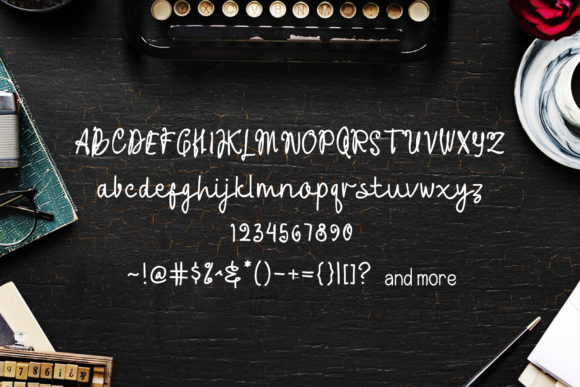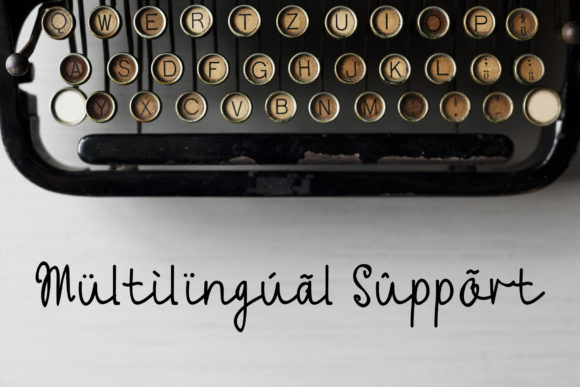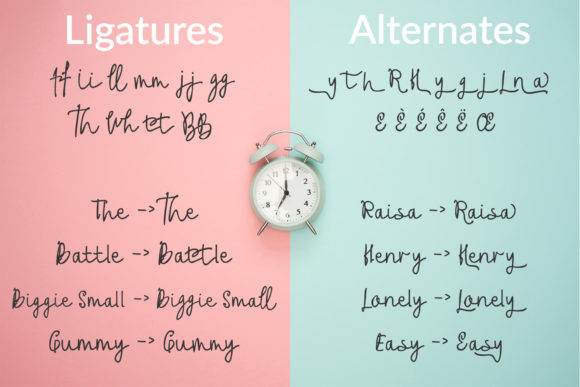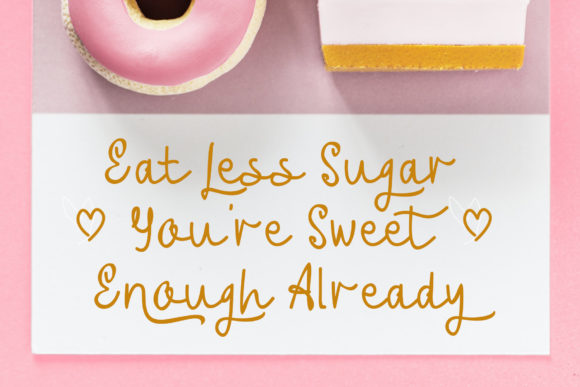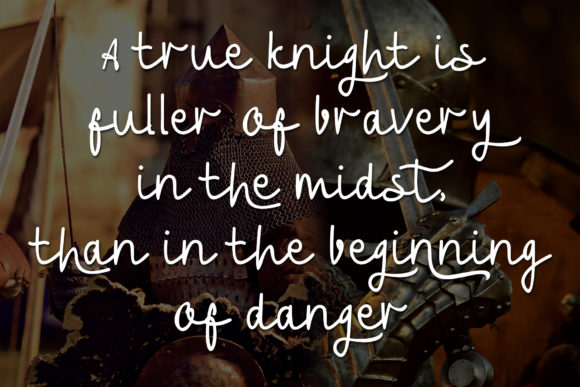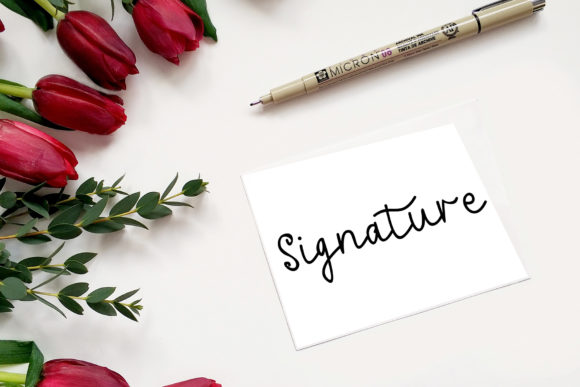
Discover the Magic of Anitta Script Font
Have you ever been stuck trying to find the perfect font to match your creative vision? You’ve spent hours scrolling through design websites, only to end up with a font that just doesn’t feel right. Well, we’ve got the solution for you! Introducing the beautiful and elegant Anitta Script Font – the perfect addition to any design project.
Whether you’re creating invitations, posters, social media graphics, or anything in between, Anitta Script Font is sure to impress. This stunning script font is perfect for adding a touch of sophistication and elegance to your designs. As a designer, you know how valuable it is to have a versatile font that can elevate your work to the next level. Anitta Script Font is that font – and it’s about to become your new go-to.
Anitta Script Font Key Features
- Font Family: Anitta Script, a unique script font designed for creative and artistic purposes.
- Unique Characteristics: Features a distinctive, handwritten style with swashes and flourishes, adding a touch of elegance and sophistication to designs.
Anitta Script Font Review
I’ve had the chance to work with the Anitta Script Font, and I must say it’s a unique addition to any design project. ✨ One thing that works well is its elegant, cursive feel, making it perfect for titles, headings, and even body text in certain contexts. The font’s versatility allows it to adapt to various design styles, from modern to vintage. ✨ Another advantage is its extensive language support, making it a great choice for multilingual projects.
However, there are some limitations to consider. ⚠️ For one, the font can appear a bit too ornate for some designs, which may make it difficult to read in certain contexts. ⚠️ Additionally, the font’s ligatures can sometimes clash with other typography elements, leading to an uneven visual experience. ⚠️ Lastly, the font’s compatibility with older systems and browsers may be a concern, as it’s a relatively new release.
Key Points:
- Unique, elegant cursive feel
- Extensive language support
- Can appear too ornate in certain contexts
- Ligatures may clash with other typography elements
- Compatibility issues with older systems and browsers
The Anitta Script Font is a great addition to any designer’s toolkit, offering a unique and elegant feel to any project. While it may have some limitations, its versatility and extensive language support make it a solid choice for a wide range of design applications.
Anitta Script Font is a beautiful, elegant script font that is perfect for:
- Food and beverage labels
- Home decor and signage
Remember to use the font consistently throughout your design to create a cohesive look.
Great Vibes is a beautiful, elegant script font perfect for wedding invitations, luxury branding, and high-end packaging. It has a more refined and sophisticated feel compared to Anitta Script Font, making it ideal for formal events and premium products.
Great Vibes is more delicate and has a more subtle flair compared to Anitta Script Font, which is bolder and more playful. Great Vibes is also more versatile and can be used for a wide range of applications, from formal invitations to elegant product packaging.
Alex Brush is a gorgeous, handwritten script font that’s perfect for creating a personal and emotional connection with your audience. It has a more organic and hand-drawn feel compared to Anitta Script Font, making it ideal for storytelling and creating a sense of nostalgia.
Alex Brush is more whimsical and has a more expressive feel compared to Anitta Script Font, which is more polished and refined. Alex Brush is also more suitable for applications where you want to convey a sense of warmth and personality, such as social media, blog posts, and product descriptions.
Yes, you can customize the Anitta Script Font using various design software. The font supports OpenType features, allowing you to access advanced typographic controls, such as ligatures, swashes, and stylistic sets. You can also use font editors or plugins to customize the font to your liking.